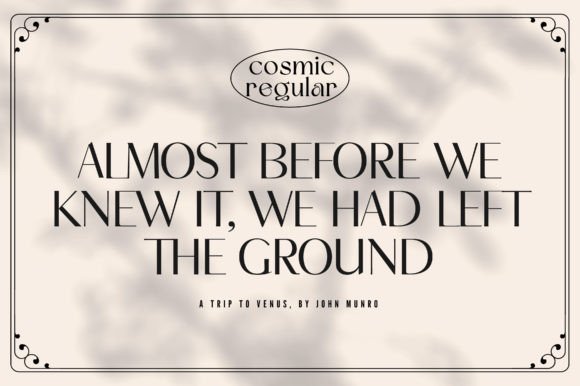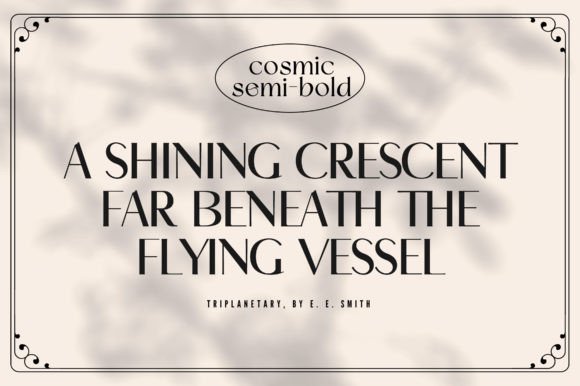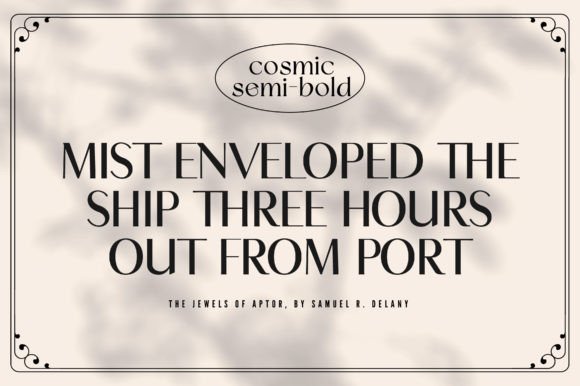
Introduction to Cosmic Font
Cosmic is an elegant and chic minimalist serif font family, the perfect solution for all your design needs.
The minimalist serif style is clean and modern, and the unique styles of each font allow you to experiment and find the perfect match for your project Whether youโre creating a new product or revamping an existing brand, this font family has everything you need to take your design to the next level.
Key Features of Cosmic Font